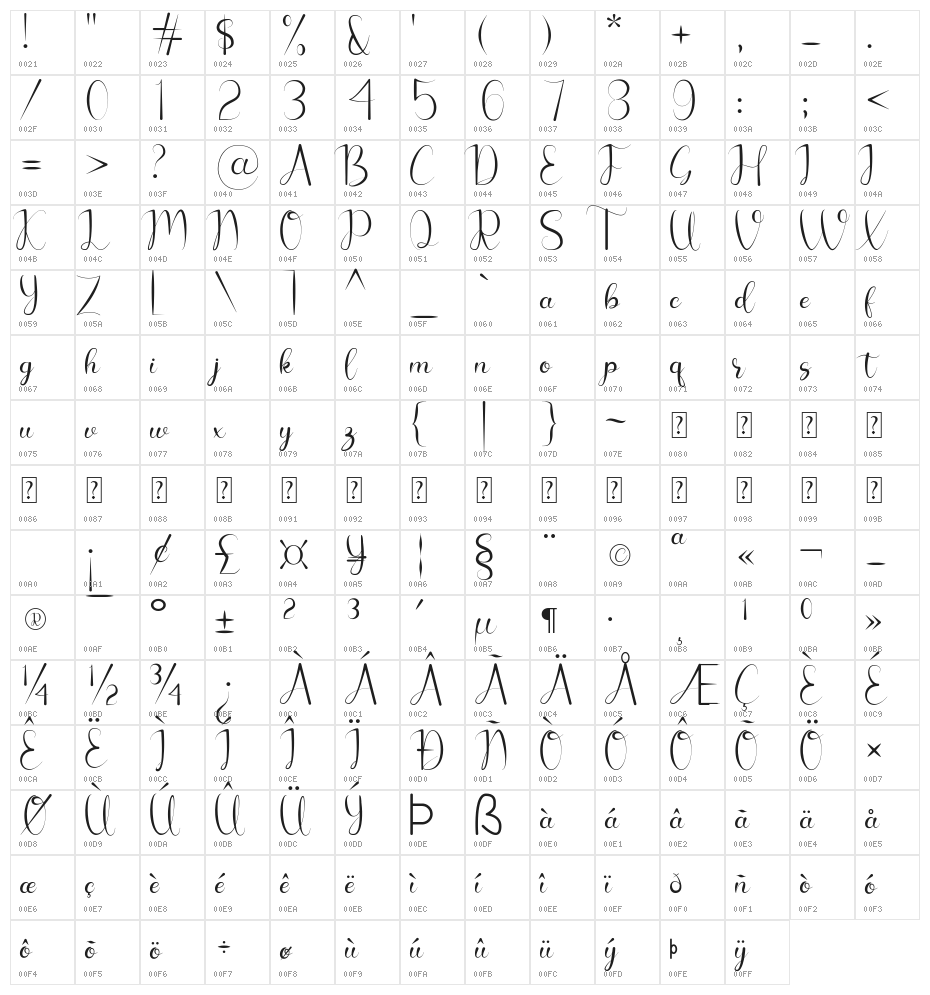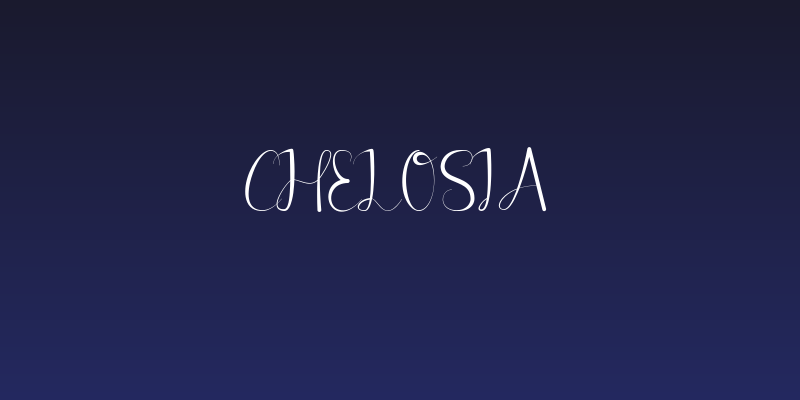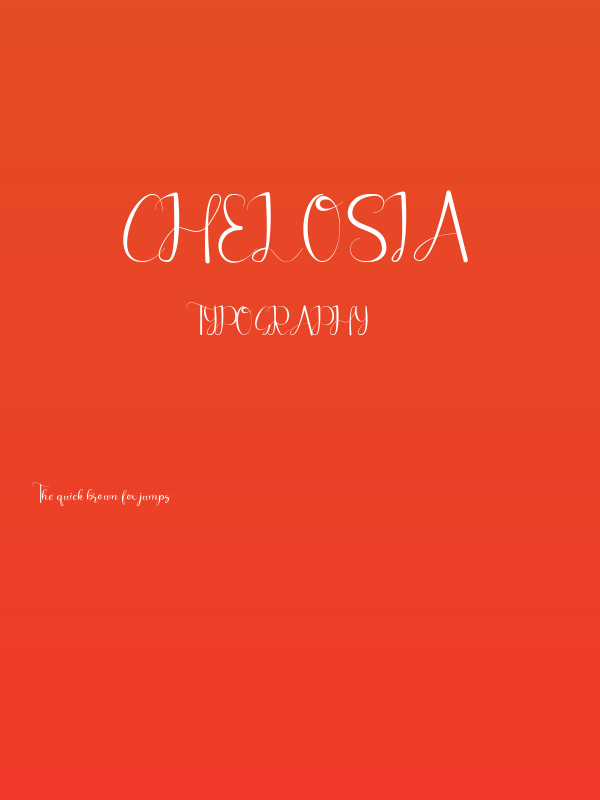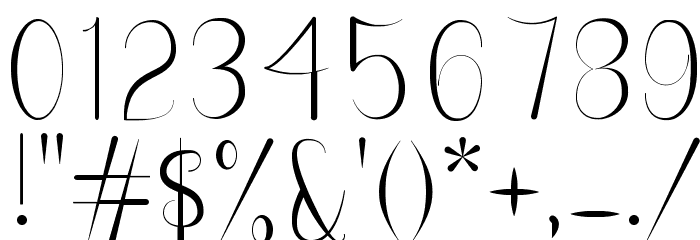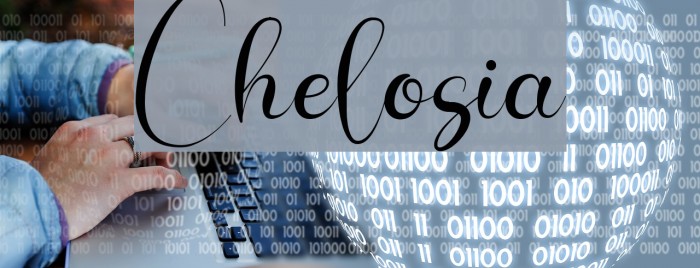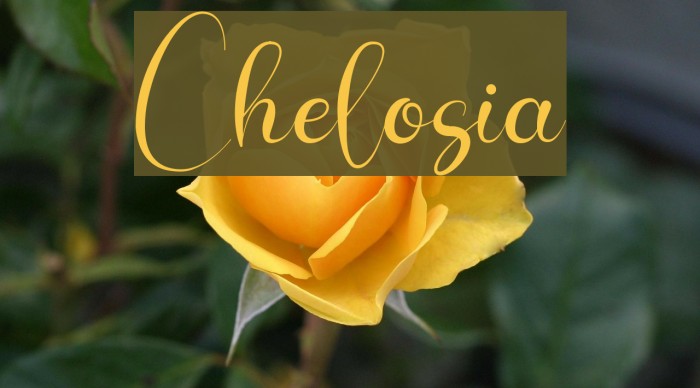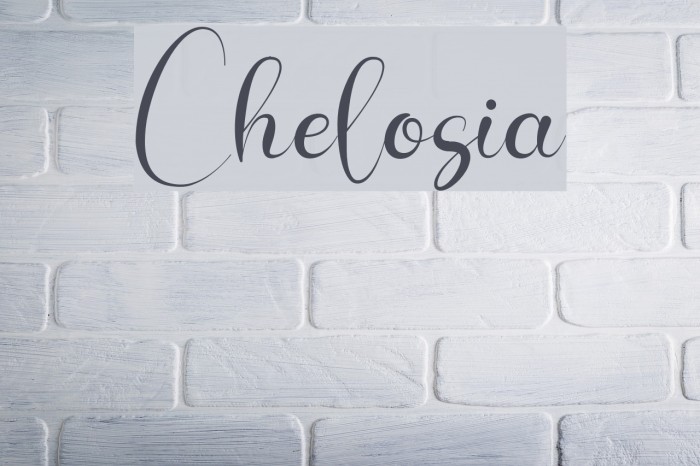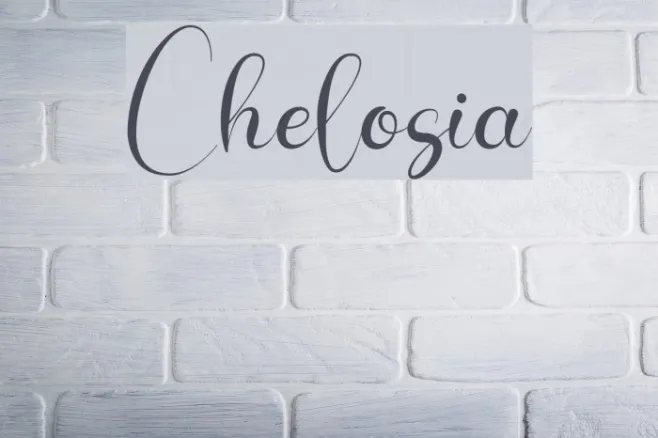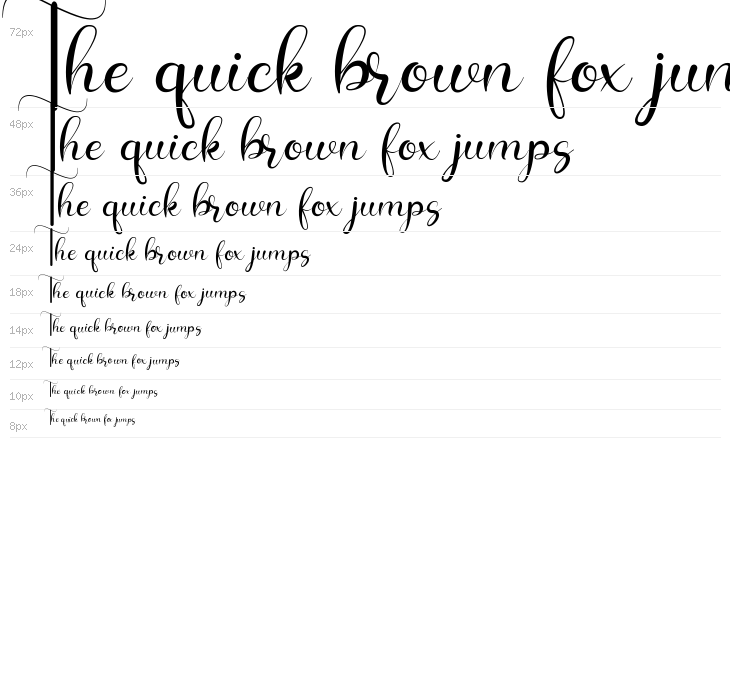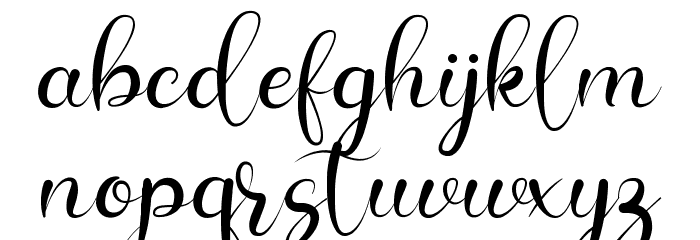
Chelosia Font
Chelosia Description
This font exudes elegance and sophistication with its flowing, cursive style. The uppercase letters are characterized by their tall, slender forms with intricate loops and swashes, creating a sense of movement and grace. The lowercase letters maintain a consistent flow, with smooth curves and delicate connections between characters. The numerals are sleek and slightly elongated, complementing the overall aesthetic. Special characters are thoughtfully designed, maintaining the font's elegant and decorative nature. This font is perfect for projects that require a touch of class and refinement.
| Use Case | Headlines, Invitations, Branding |
| Proposed Projects | Ideal for wedding invitations, luxury branding, elegant packaging, and decorative headlines. |